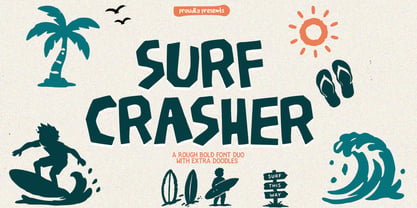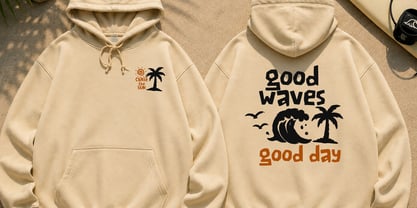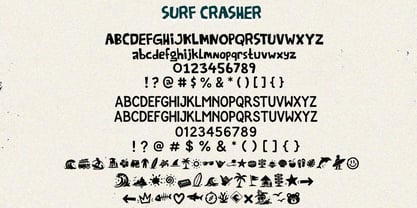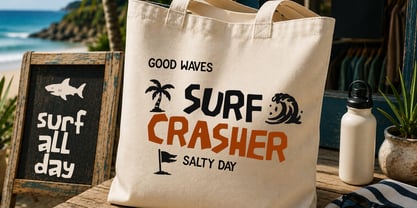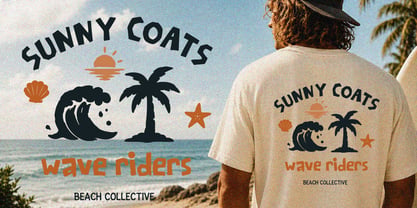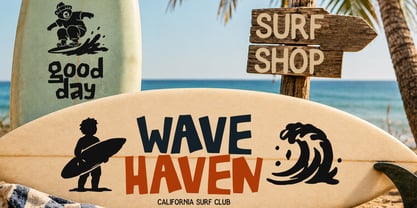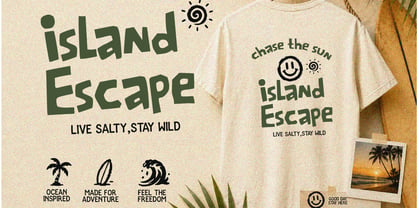
Surf Crasher
by Cocodesign
The Surf Crasher Font Family was designed by Muhammad Zaini and published by Cocodesign. Surf Crasher contains 3 styles and family package options. More about this family
Surf Crasher is a bold, rough font duo that captures the laid-back essence of surfing, sunny beaches, and tropical adventures. With its chunky, handcrafted letterforms and playful irregular shapes, this font infuses a fun, energetic, and authentic handmade feel into any creative project. To enhance your design experience, Surf Crasher includes extra hand-drawn surf doodles, making it effortless to create cohesive and eye-catching designs for apparel, branding, posters, packaging, stickers, and more. The combination of bold lettering and whimsical illustrations provides a complete beach-inspired design experience. Whether you're crafting retro-inspired merchandise or modern tropical branding, Surf Crasher delivers a unique handcrafted style brimming with warmth, character, and creativity.